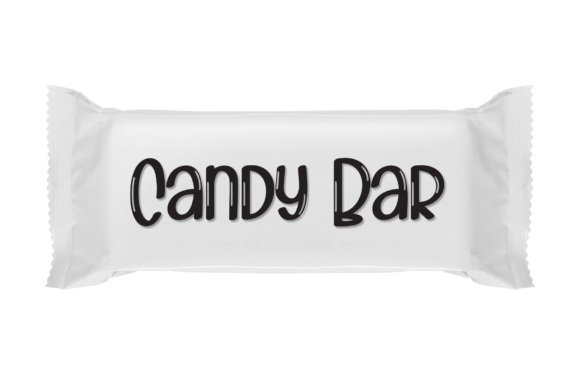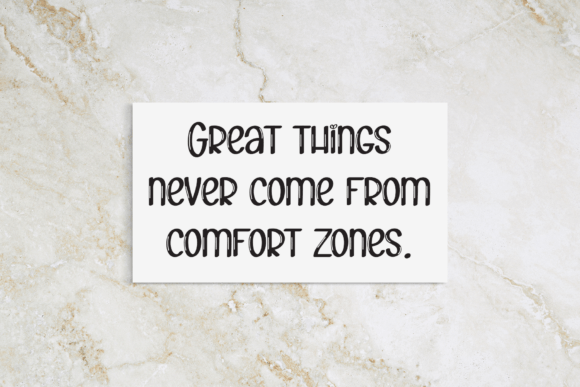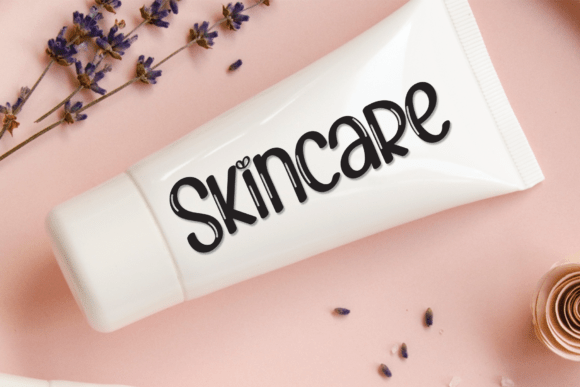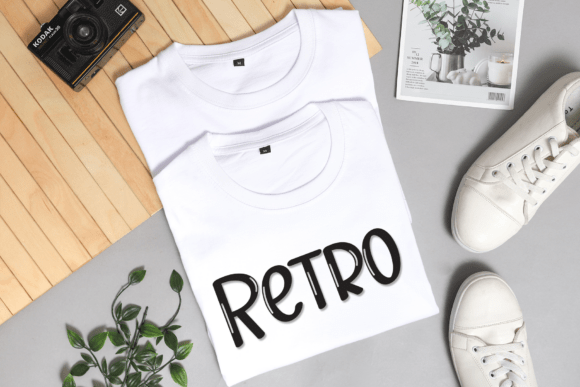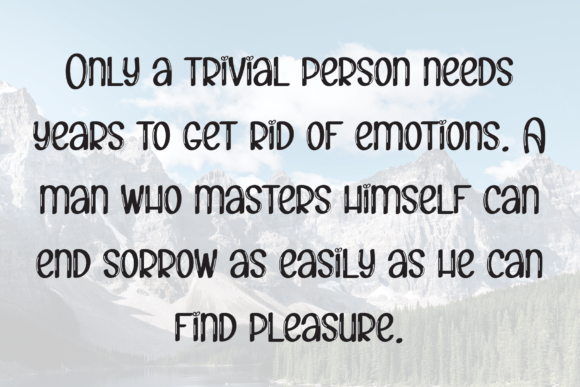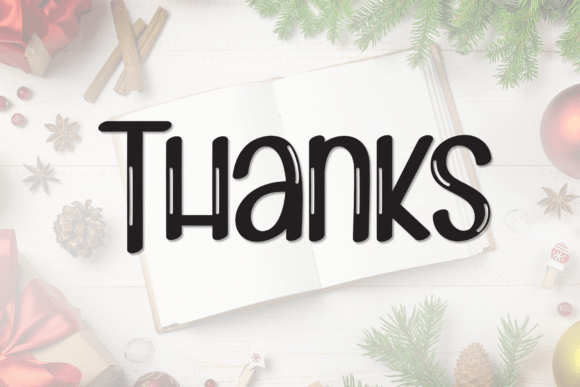
Deck the Halls with a Festive Font
As the holiday season approaches, designers and crafters alike are on the hunt for the perfect font to capture the magic of Christmas. For me, it all starts with a steaming cup of hot cocoa, a cozy fireplace, and a brainstorming session filled with visions of sugarplums and sparkling snowflakes. It’s during these moments that I stumble upon the perfect font – the Book Christmas Font.
This delightful, bubble-style display typeface is tailor-made for festive merchandise, social media graphics, and DIY holiday crafts. Its rounded edges and distinctive white highlight details give a glossy, 3D effect that’s sure to make your designs stand out. Whether you’re a seasoned designer or a crafty beginner, the Book Christmas Font is an excellent choice for creating playful winter advertisements, T-shirt designs, and more.
Key Features of Book Christmas Font
- Font Family: A unique, decorative font designed to evoke a sense of nostalgia and holiday cheer.
- Unique Characteristics: Features intricate details, flourishes, and ornaments that add a touch of elegance and sophistication to holiday-themed designs.
Book Christmas Font Review
At first glance, the Book Christmas Font seems like a charming addition to any holiday design project. ✨ The elegant, handwritten feel of the font immediately evokes a sense of nostalgia and warmth, perfect for Christmas cards, invitations, or any other festive content.
The font’s character set is comprehensive, covering a wide range of languages and special characters. ✨ The design team has also included several styles, from regular to bold, to help you achieve the desired look.
However, I did encounter some limitations with the font. ⚠️ The kerning, or the spacing between characters, can be a bit off at times, which may affect readability. Additionally, the font’s width can be inconsistent, making it challenging to achieve uniform layouts.
Here are some specific issues I’ve encountered:
- Kerning issues, particularly with letter combinations like “to” or “of”
- Inconsistent character width, leading to uneven text spacing
- Limited support for some special characters and ligatures
Overall, while the Book Christmas Font has its charm and can be a great addition to certain designs, its limitations make it less than ideal for complex or high-traffic projects.
The Book Christmas Font is perfect for creating a warm and inviting holiday atmosphere. Some common use cases include:
- Christmas card designs
- Holiday party invitations
- Winter-themed social media graphics
- Christmas-themed blog posts and articles